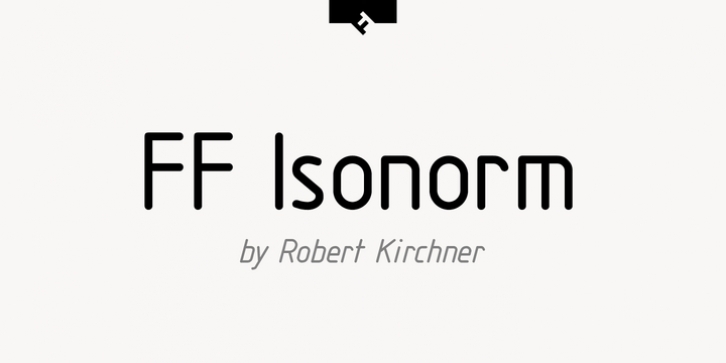
Austrian type designer Robert Kirchner created this sans FontFont in 1993.
The family contains 2 weights: Regular and Italic and is ideally suited for editorial and publishing and poster and billboards.
FF Isonorm provides advanced typographical support with features such as ligatures, alternate characters, case-sensitive forms, and stylistic alternates.
It comes with proportional lining figures.
As well as Latin-based languages, the typeface family also supports the Greek writing system.
This FontFont is a member of the FF Isonorm super family, which also includes FF Isonorm Monospaced.